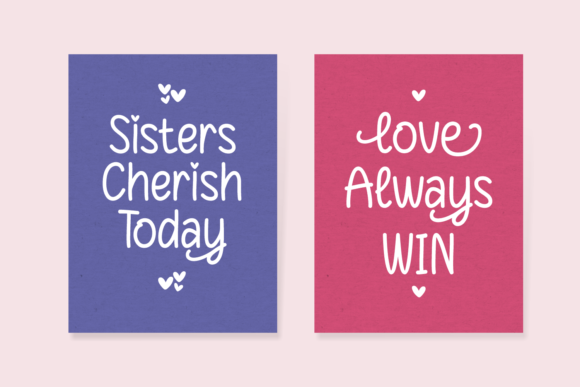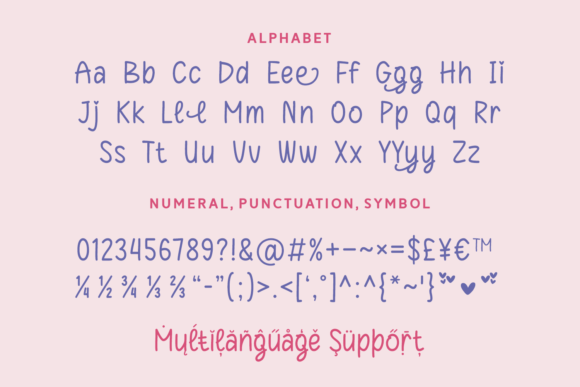
Discovering the Perfect Font for Your Next Design Project
Have you ever stared at a blank canvas, trying to come up with the perfect font to convey the emotions behind your design? We’ve all been there. Sometimes, it takes a little inspiration to spark that creative spark. For me, it was a conversation with a friend who had just started a new business, and I was tasked with creating a logo that exuded warmth and friendliness. That’s when I stumbled upon the Anggie Love Font.
This sweet, quirky, and relaxed handwritten font is perfect for designs that require an informal, friendly touch. Whether it’s a Valentine’s Day card or a branding for a boutique, the Anggie Love Font adds a lovely vibe that’s hard to resist. As a designer, it’s valuable to have a font that can evoke emotions and create a connection with your audience.
With the Anggie Love Font, you can add a personal touch to your designs and make them truly unforgettable. In this article, we’ll explore the features and benefits of this charming font, and how you can incorporate it into your next design project.
Anggie Love Font Key Features
- Font Family: Anggie Love Font is a beautiful, handwritten script font designed to add a touch of elegance to your designs.
- Character Count: The font includes 210 characters, including uppercase and lowercase letters, numbers, and punctuation marks.
- Unique Characteristics: Anggie Love Font features a unique, handwritten style with flowing connections between letters, giving it a personal and emotive feel.
Anggie Love Font Review
Overall, I’d say the Anggie Love Font is a sweet and endearing font that’s perfect for Valentine’s Day or any other romantic occasion. Here are some of its strengths:
- ✨ Unique and quirky design that stands out from the usual romantic fonts
- ✨ Perfect for titles, headings, and short text blocks where a playful touch is needed
- ✨ Beautifully crafted with a mix of cursive and sans-serif elements
- ⚠️ May not be the best choice for long blocks of text, as it can be a bit hard to read at larger font sizes
- ⚠️ The font may not be as versatile as other fonts, making it less suitable for everyday use
Overall, I think the Anggie Love Font is a lovely addition to any designer’s toolkit, but it’s best used in moderation and for specific projects where its unique charm can shine through.
Tips: Use the Anggie Love Font for romantic and whimsical designs, such as wedding invitations, baby shower invitations, and Valentine’s Day cards.
Tips: Use the Anggie Love Font for intricate designs, such as hand-lettered quotes, watercolor illustrations, and custom typography.
Tips: Use the Anggie Love Font for presentations, reports, and documents that require a touch of romance and whimsy.
The Anggie Love Font is ideal for designs that require a romantic, whimsical, or vintage feel. Some common use cases include:
- Baby shower invitations and decorations
- Valentine’s Day cards and gifts
- Distressed texture or watercolor effect for a vintage look
- Floral patterns or illustrations for a whimsical touch
- Soft pastel colors for a romantic feel
Alternatives to Anggie Love Font for Designers
Great Vibes is a beautiful, elegant script font that’s perfect for creating a romantic or whimsical feel in your designs. It’s ideal for wedding invitations, birthday cards, and other special occasion projects. Compared to Anggie Love Font, Great Vibes has a more refined and sophisticated look, making it suitable for high-end designs.
Pacifico is a modern, cursive font that’s great for creating a relaxed and beachy vibe in your designs. It’s perfect for travel brochures, food labels, and other projects that require a casual, friendly tone. While Anggie Love Font has a more playful feel, Pacifico is more laid-back and easy-going, making it suitable for projects that need a breezy atmosphere.